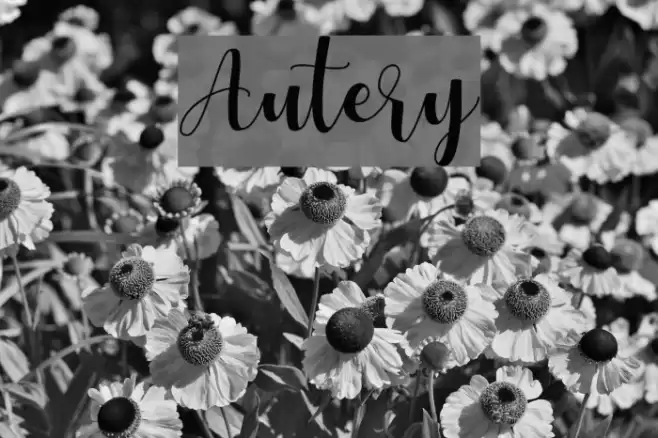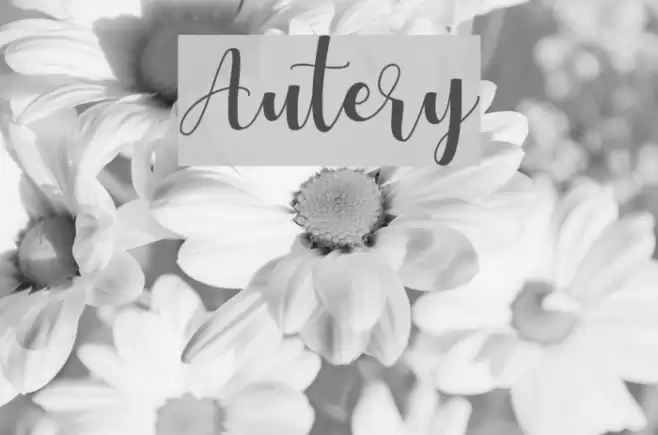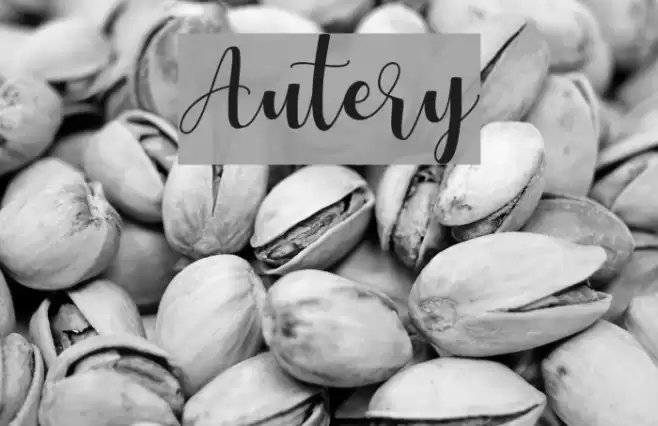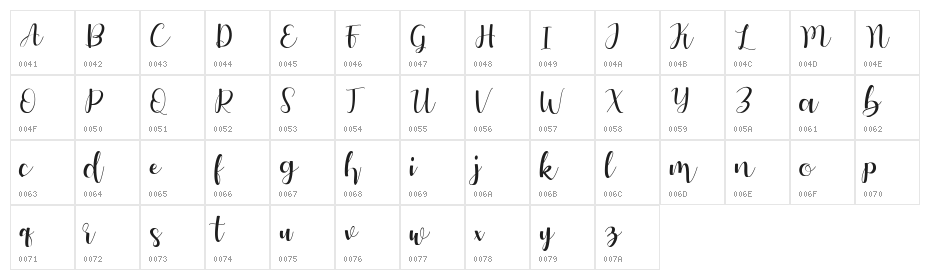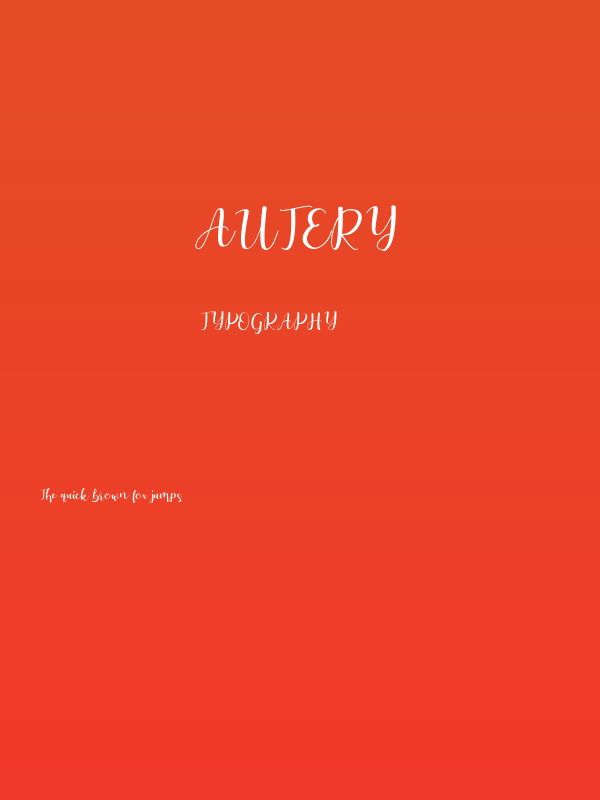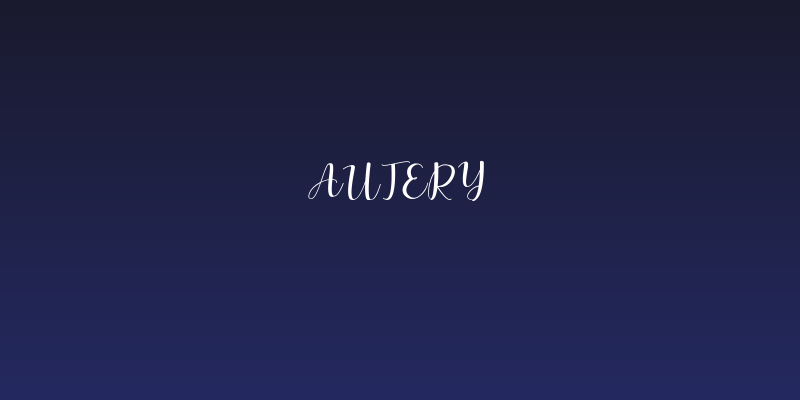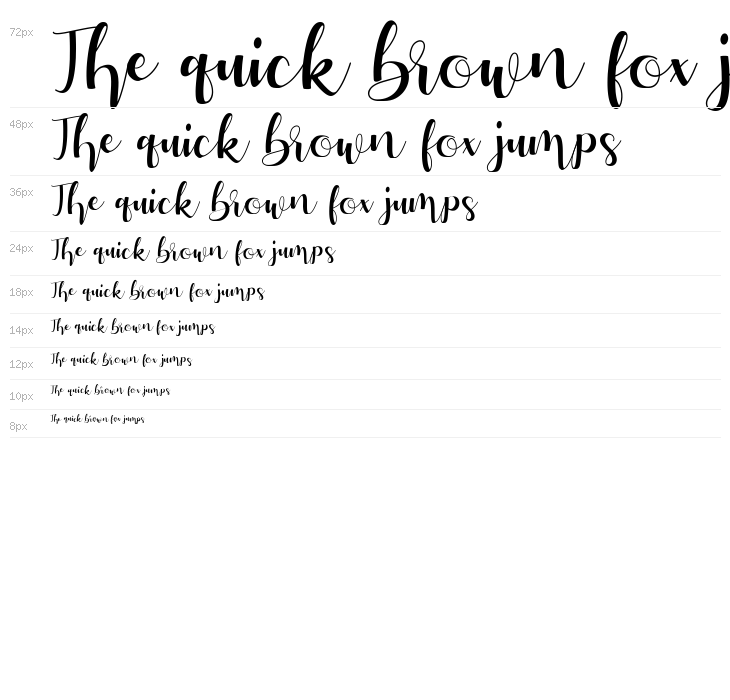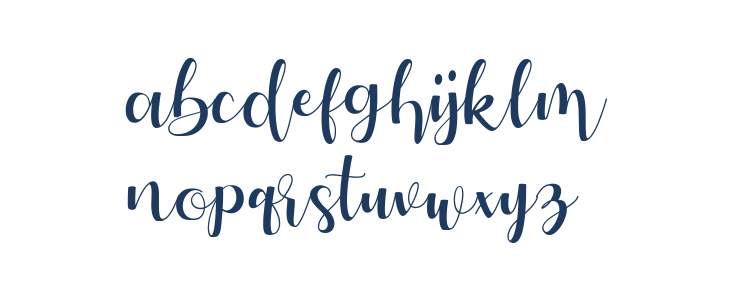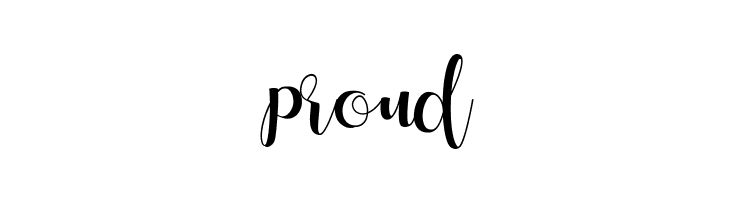
Autery Font
Autery Description
This font features a flowing, cursive style with elegant loops and flourishes. The uppercase letters are tall and graceful, with a slight slant that adds a sense of motion and fluidity. The lowercase letters are equally stylish, with distinctive, sweeping tails and ascenders that enhance its decorative appeal. The font maintains a consistent stroke width, giving it a balanced and harmonious look. Its artistic flair makes it suitable for creative and expressive designs, adding a touch of sophistication and charm to any project.
A decorative cursive font with elegant loops and consistent stroke width from Uncategorized fonts.
- Proposed Projects: Ideal for wedding invitations, greeting cards, logos, and branding materials that require a touch of elegance and creativity.
- Use Case: Logos, Invitations, Decorative text